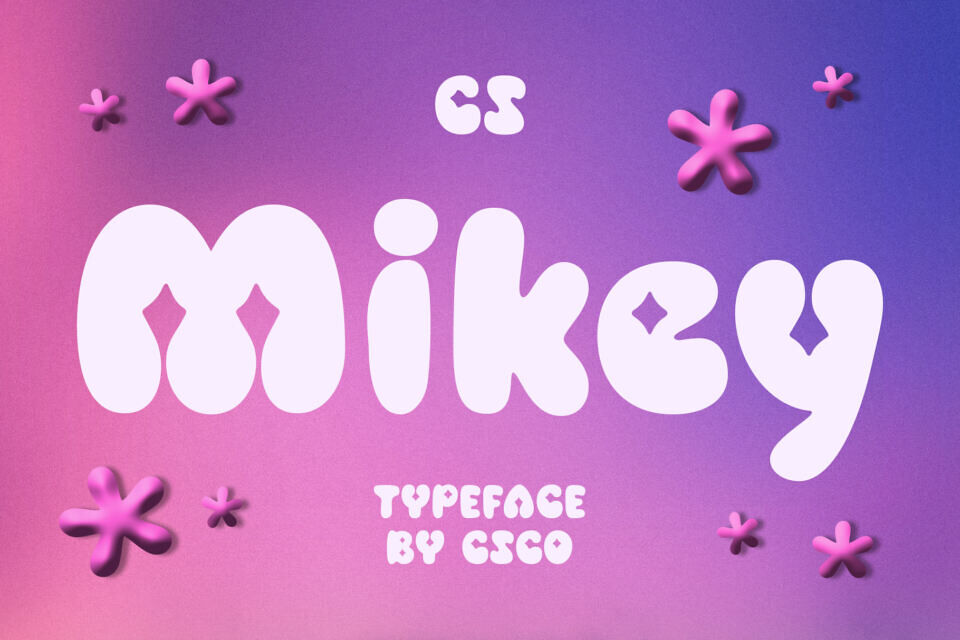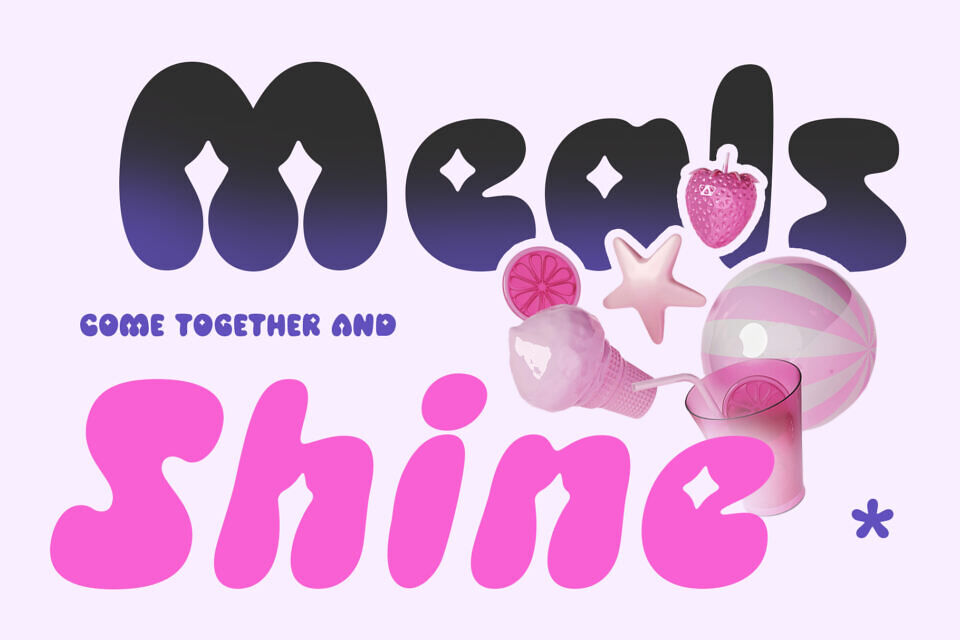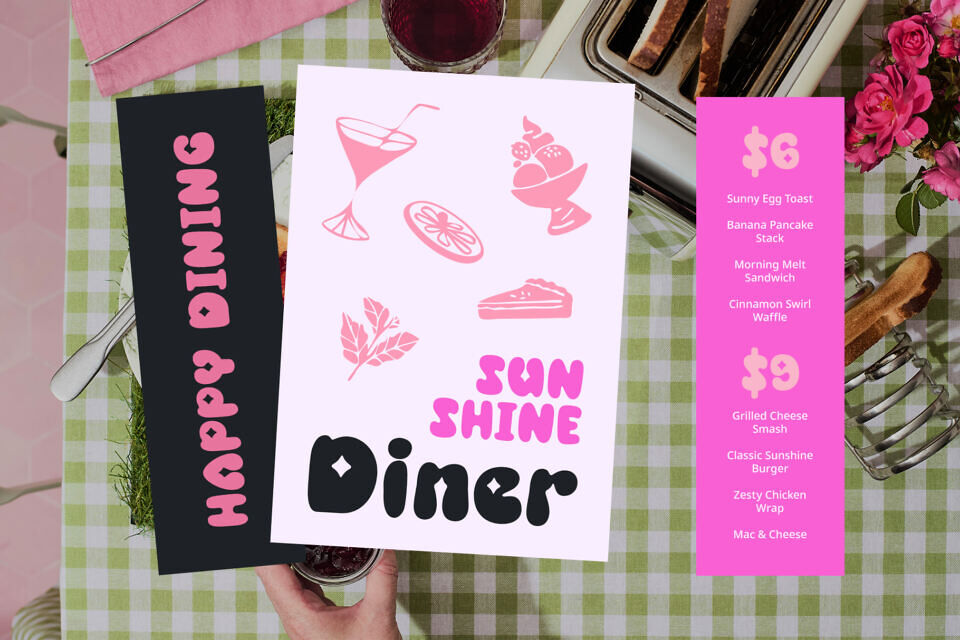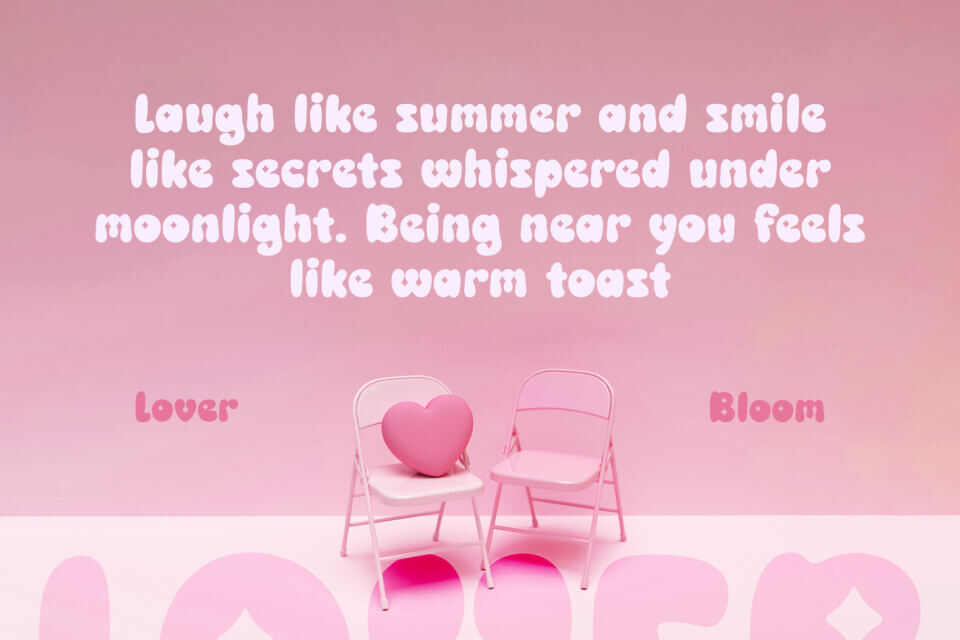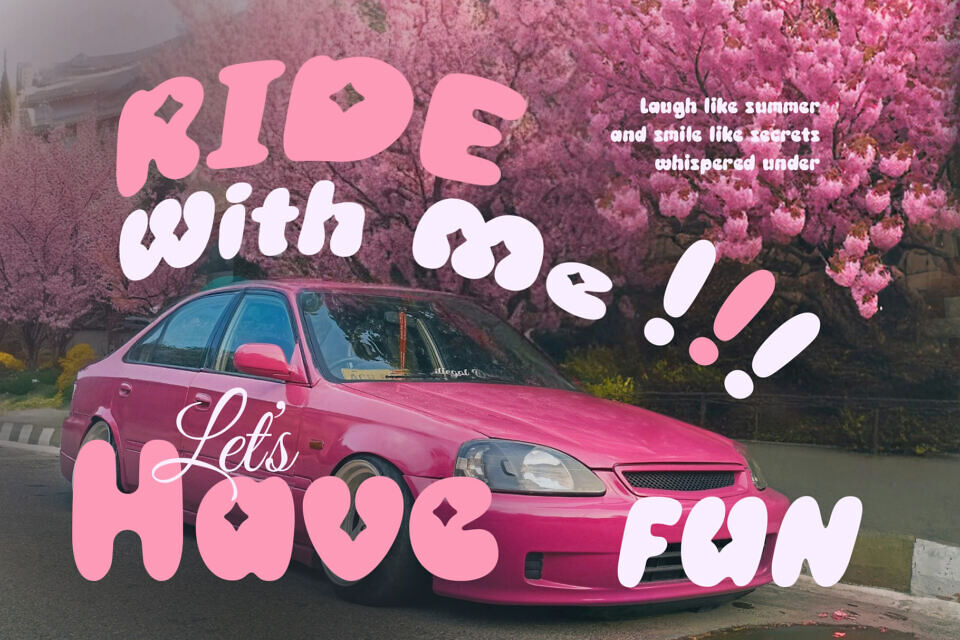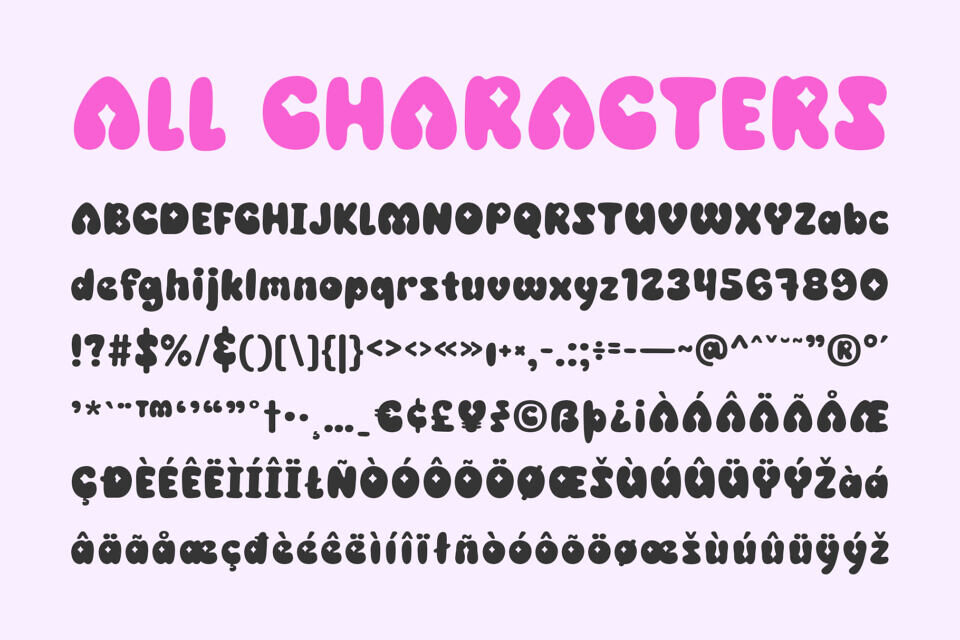
CS Mikey Font
CS Mikey is a modern display font designed with bold, bubbly shapes and rounded, soft edges that instantly convey a sense of playfulness and joy. Each letter feels inflated with character, bringing a friendly and approachable tone to your designs.
The font’s funky vibe and lively rhythm are inspired by playful doodles, childhood nostalgia, and expressive graphic styles. It’s designed to stand out with its exaggerated curves and fun proportions, radiating energy that is both trendy and approachable. This makes CS Mikey ideal for projects that need to be bold, adorable, and filled with joy.
CS Mikey is the go-to choice for youth-oriented branding, fun packaging, toy labels, and playful digital content. Its positive energy shines through in both print and digital applications, making any design feel exciting and full of life.